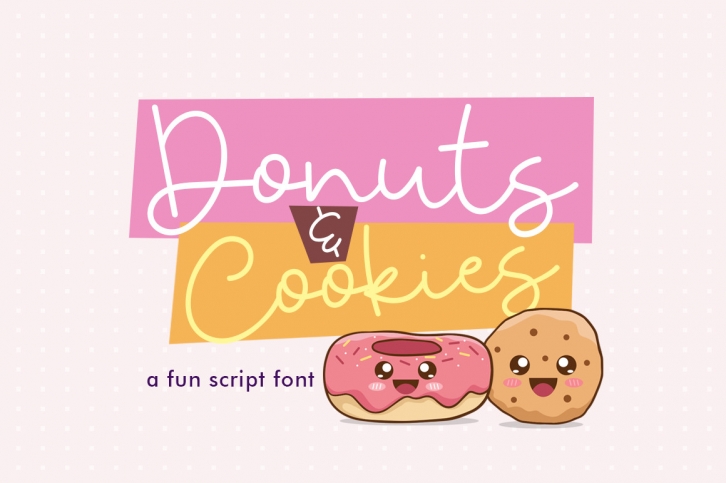
Donuts & Cookies is a simple and delicate script font. Whether you use it for cartoon-related designs, children games, or just any creation that requires a playful touch, this font is the perfect choice for your designs!